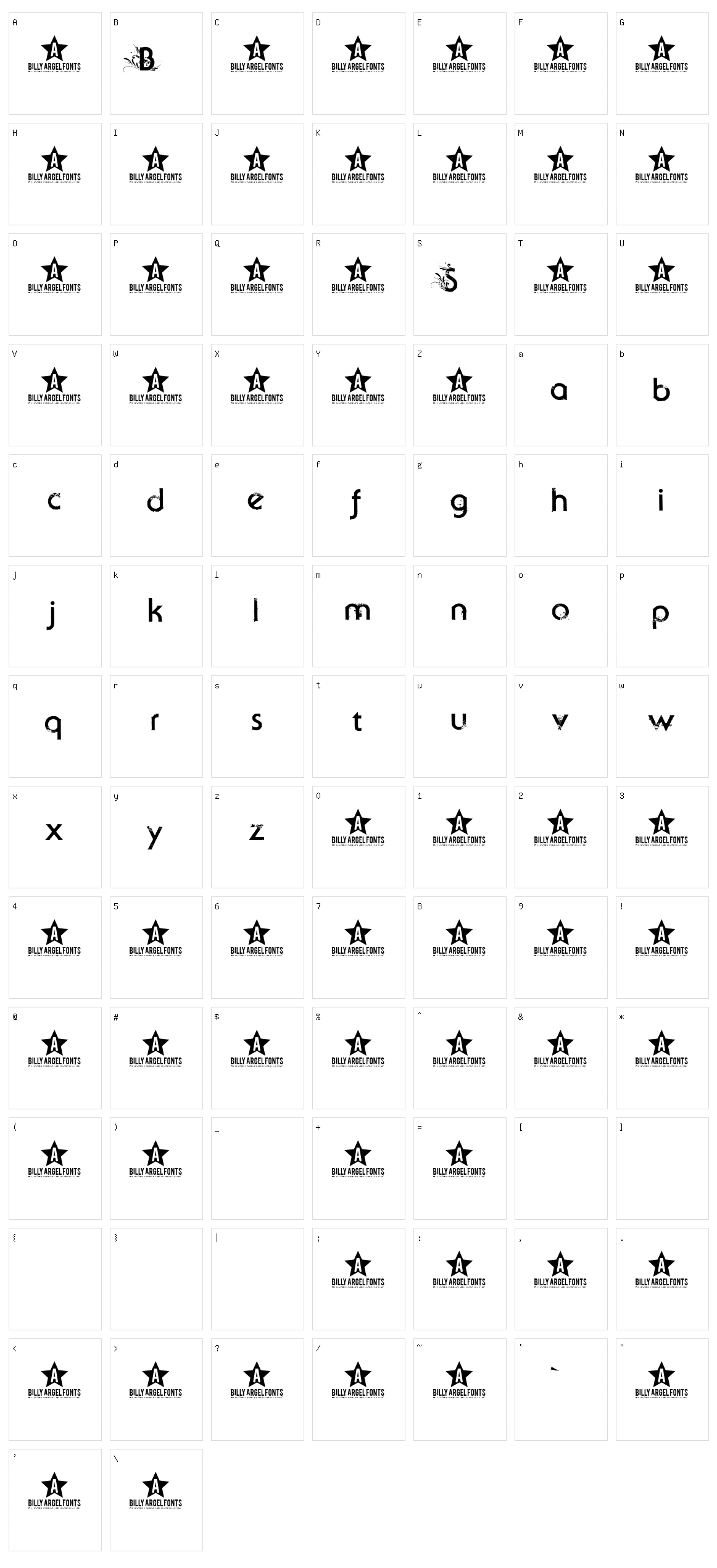
The free font Beyond Sky is carefully designed by Billy Argel Fonts ®, showcasing a thoughtful balance of creativity and usability and falls under the Eroded font style. When you download the ZIP file, it contains only 556.89 KB of font files, making it lightweight and quick to download. Please review the license details below to understand permitted usage and distribution rights. If license information is not available, we recommend using this font for personal projects only or contacting the author directly for commercial usage permissions.
Beyond sky font